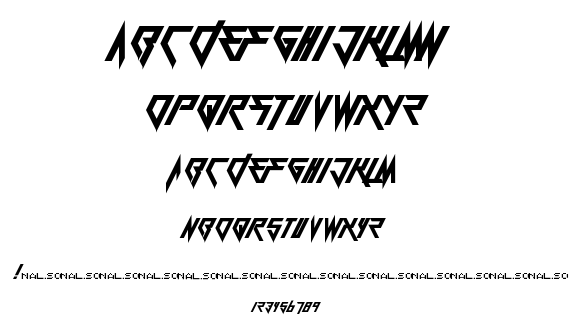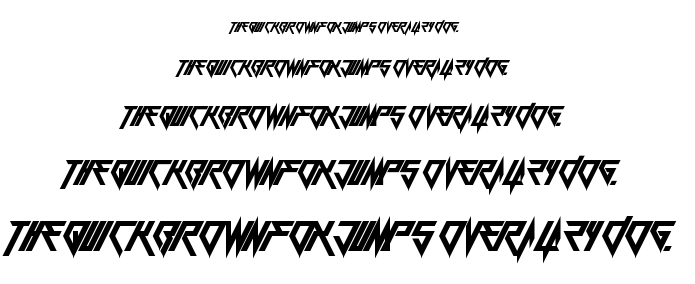
“Berate the Thunder”, created using FontStruct, is a Donationware font.
See added image below for proper idea of how this font looks! Letters should be mixed and matched to get proper kerning (or do it manually, it’s designed mainly for logos and will probably produce a better result).